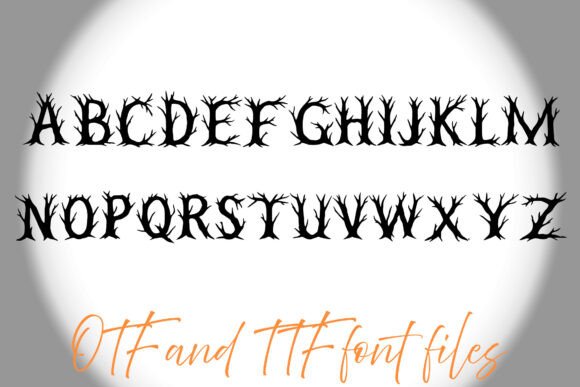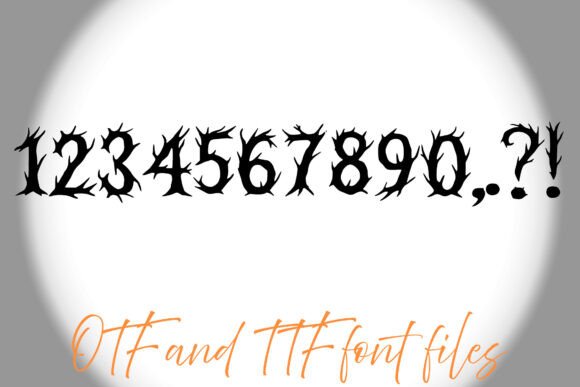
Unleash the Eerie Charm of Dead Trees Font: A Haunting Display Typeface
In the world of typography, few fonts evoke the same level of eeriness and mystique as Dead Trees Font. This haunting display typeface is carefully crafted from twisted branches and leafless limbs, bringing a natural yet unsettling feel to any design project. Whether you’re creating Halloween graphics, gothic posters, forest horror themes, or fantasy titles, Dead Trees Font is the perfect choice to add a touch of drama and mystery.
The Inspiration Behind Dead Trees Font
Dead Trees Font is more than just a typeface – it’s an experience. Imagine walking through a desolate forest, surrounded by towering trees that stretch towards the sky like skeletal fingers. The wind whispers through the branches, creating an unsettling melody that sends shivers down your spine. This font captures the essence of that eerie atmosphere, transforming it into a visual representation that’s both captivating and haunting.
Design Features of Dead Trees Font
Each letter in Dead Trees Font is meticulously designed to resemble a twisted tree, with branches and limbs that seem to grow organically from the page. The font’s design features include:
- Twisted branches: Every letter is formed from twisted branches that create a sense of movement and fluidity.
- Leafless limbs: The absence of leaves adds to the eerie feel, creating a sense of desolation and decay.
- Natural texture: The font features a natural texture that gives it a organic, earthy feel.
- Shadowy effects: Each letter seems to grow like a shadowy tree, adding depth and dimension to any design.
Uses for Dead Trees Font
Dead Trees Font is a versatile typeface that can be used in a variety of design projects, including:
- Halloween graphics: Create spooky posters, flyers, and social media graphics that will send shivers down your audience’s spine.
- Gothic posters: Add a touch of mystery and elegance to your gothic-inspired designs.
- Forest horror themes: Bring the eerie atmosphere of the forest to your horror-themed designs, whether it’s a movie poster or a book cover.
- Fantasy titles: Add a touch of magic and wonder to your fantasy-inspired designs, whether it’s a book title or a movie subtitle.
Tips for Using Dead Trees Font
To get the most out of Dead Trees Font, here are a few tips to keep in mind:
- Use it sparingly: Due to its bold and eye-catching design, Dead Trees Font is best used sparingly to avoid overwhelming the viewer.
- Pair it with contrasting fonts: Combine Dead Trees Font with simpler fonts to create visual interest and hierarchy.
- Experiment with colors: Try pairing Dead Trees Font with bold, vibrant colors to create a striking contrast.
Dead Trees Font is a unique and captivating typeface that’s sure to add a touch of drama and mystery to any design project. With its twisted branches, leafless limbs, and natural texture, this font is perfect for designers and crafters looking to create eerie and haunting designs. Whether you’re working on a Halloween graphic, a gothic poster, or a fantasy title, Dead Trees Font is the perfect choice to unleash your creativity and bring your vision to life.